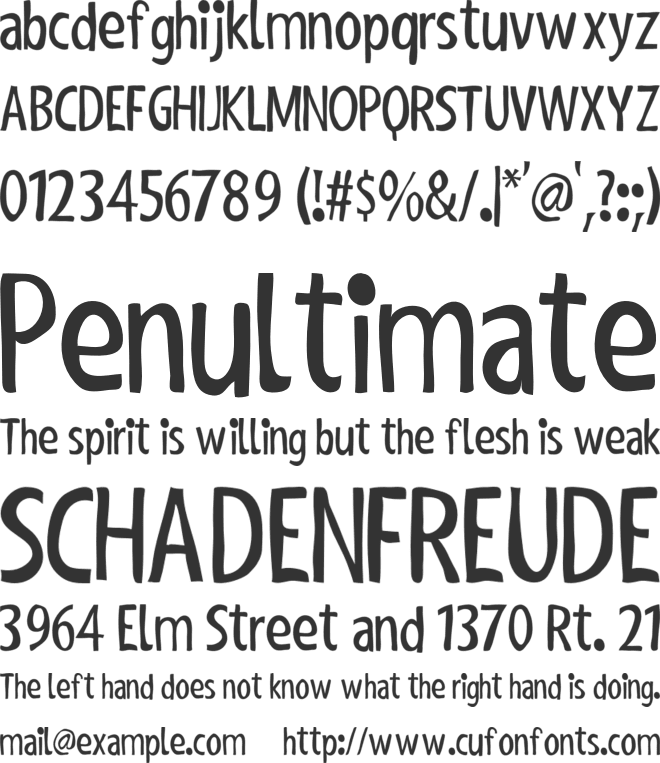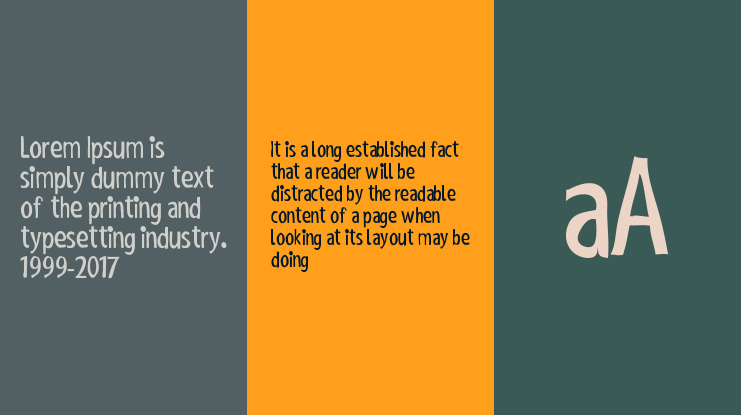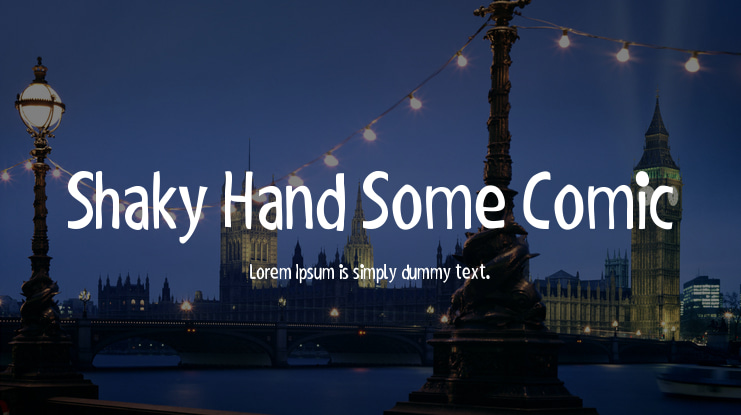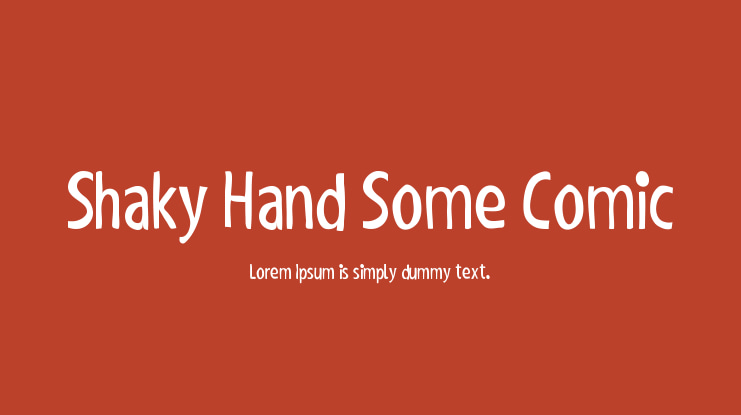
Shaky Hand Some Comic Font Family
Manuel Viergutz
CHARACTERISTICS The kiddy and warmly cha­rac­ter and the cute, huge points (amongst others punc­tua­tion), gives the type­face a high reco­gni­tion value and uniqueness.
APPLICATION AREA The warm, child-like, bold and striking sans serif font âShaky Hand Some Comicâ would look good at dis­play size for head­lines in magazi­nes or web­sites, pos­ters, packa­ging, covers or webbanner.